Fresh Halloween Fonts for the Season
Every spooky season deserves a fresh batch of typography — and this collection of 25 Halloween fonts delivers just that, blending gothic blackletter display type with horror-inspired lettering, witchy scripts, and a few playful, cute styles for lighter Halloween projects.
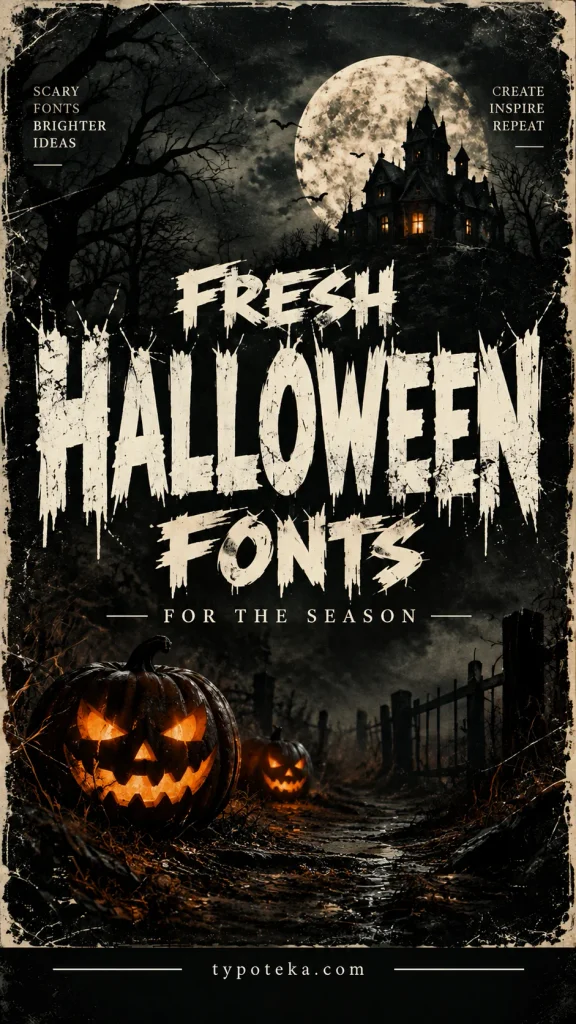
1. Grimstroke
Enter a world of darkness with Grimstroke, a bold and aggressive horror brush typeface designed to bring a raw, chaotic, and sinister atmosphere to your designs.
Whether you’re creating a terrifying Halloween poster, horror movie title, metal band artwork, dark streetwear design, gaming graphic, or rebellious logo, Grimstroke is built to make your typography stand out.
Vyrex Blackmetal is a dark, aggressive display typeface inspired by the raw atmosphere of black metal, gothic horror, underground music, and extreme dark aesthetics.
Perfect for black metal band artwork, album covers, horror movie titles, concert posters, dark branding, gothic designs, Halloween graphics, T-shirt designs, streetwear, merchandise, stickers, posters, book covers, packaging, and other alternative creative projects.
Freaky is an eerie, high-impact Condensed Sans Display font engineered to bring a weird, spooky twist to modern display typography.
Its bold visual weight and unique letterforms deliver maximum impact, making it the ultimate choice for commanding headlines, party invitations, merchandise designs, and spooky digital marketing banners.
Groovy Halloween Font – Cute & Spooky Retro Display Typeface.
Get into the spooky spirit with this fun and playful Halloween font! Featuring bold, chunky, wavy letterforms with a charming groovy retro style, this typeface brings a colorful, cute, and slightly spooky personality to your designs.
Unleash chilling suspense, chaotic horror energy, and raw terrifying impact with Madness Scratch! Built as a display horror font, it features bold, aggressive letterforms marked by jagged claw scratches, rough distressed edges, and an erratic brush-stroke structure.
Ideal for horror movie posters, Halloween party invitations, thriller book covers, escape room branding, spooky apparel, haunted house signage, and custom Cricut or Silhouette craft SVG projects!
Bring a dark and terrifying atmosphere to your designs with Vintage Horror Font. This bold horror typeface combines distressed textures, irregular shapes, and dramatic dripping details to create an authentic creepy aesthetic.
Perfect for Halloween artwork, horror movie-inspired designs, haunted house promotions, scary quotes, T-shirt designs, posters, album covers, stickers, social media graphics, invitations, merchandise, and more.
Cast a spell of atmospheric dread and dark gothic enchantment over your designs with Raven Hex! Designed as a spooky display font, it pairs sharp carved serifs with realistic dripping wax accents and subtle witchy contours.
Ideal for Halloween event banners, witchy product packaging, horror book covers, potion labels, apparel prints, haunted house signage, and custom Cricut or Silhouette craft SVG projects!
View This Font →8. Spooky Halloween
Spooky Halloween Font is a bold and unique decorative font filled with spooky Halloween details. Perfect for Halloween invitations, party decorations, posters, greeting cards, stickers, T-shirts, Cricut projects, sublimation, and seasonal crafts.
Add a fun, creepy, and magical Halloween atmosphere to your designs.
View This Font →9. Thornbark Gothic
Invoke eerie mystery, dark forest folklore, and spine-chilling Halloween atmosphere with Thornbark Gothic! Designed as a spooky display typeface inspired by twisted branches and haunted woods, it features jagged thorn-like serifs, rough wood-bark textures, and sharp angular letterforms.
Ideal for Halloween party invitations, horror movie posters, dark fantasy book covers, haunted house branding, creepy sticker packs, festive apparel prints, and custom Cricut or Silhouette craft SVG projects!
View This Font →10. Halloween
Halloween is a “unique and professional” entry into the modern handwritten collection, designed to evoke a sense of clarity and crisp elegance. Featuring tall, thin strokes with a subtle, airy slant, it offers a refined aesthetic that feels as fresh as a mountain breeze.
With 25 fonts spanning gothic blackletter, horror, witchy, and playful Halloween styles, this collection gives designers a fresh set of options for the season. Every font is ready to install and licensed for commercial use, so your next spooky project is just a download away.